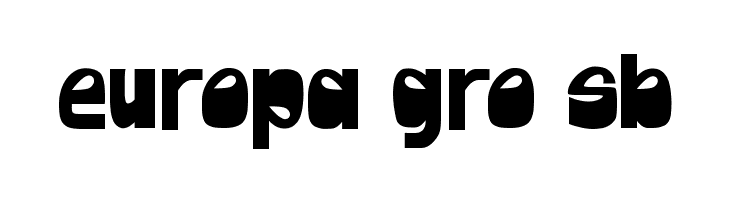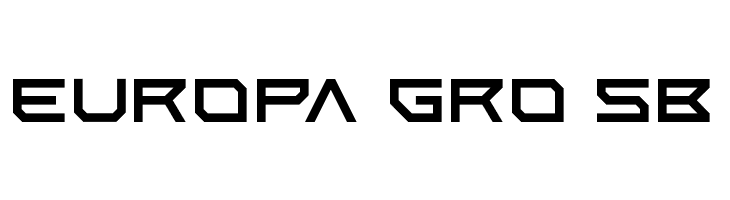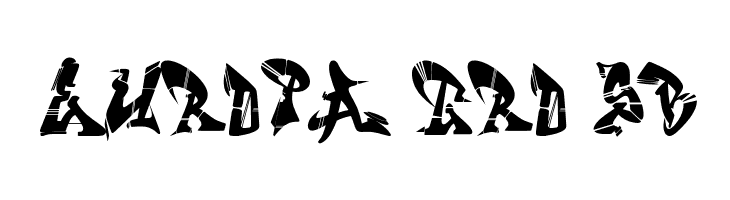
A bold, playful font with rounded edges and a bubbly appearance.
A bold, geometric font with a playful and modern style.
A bold, retro font with rounded, bubbly letterforms and high contrast strokes.
A bold, futuristic font with angular, geometric shapes.
A bold, graffiti-inspired font with sharp angles and high contrast.
A bold, graffiti-inspired font with dynamic, angular strokes and urban flair.
A bold, graffiti-inspired font with sharp angles and dynamic strokes.
A bold, angular font with a fragmented, dynamic style.